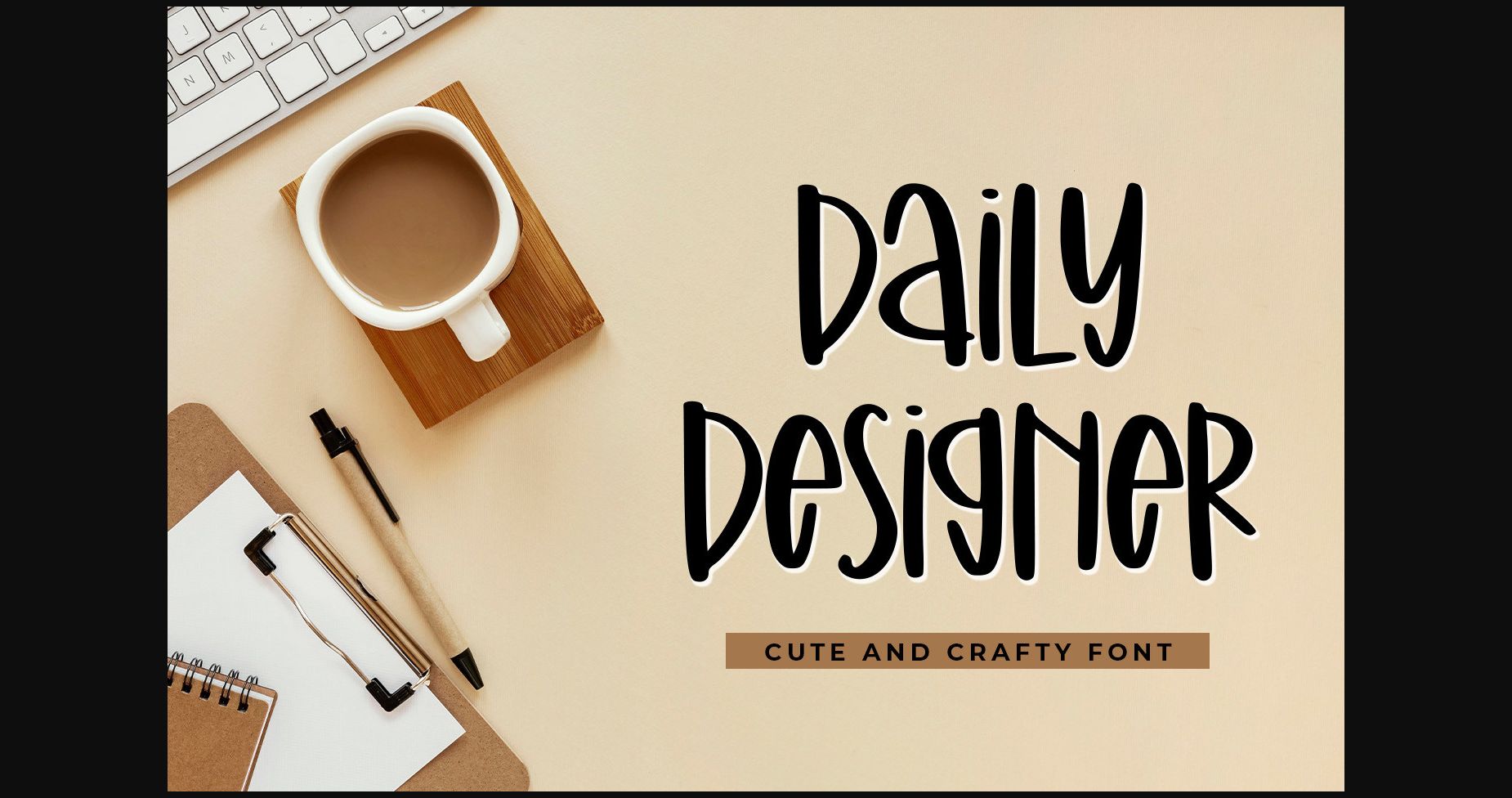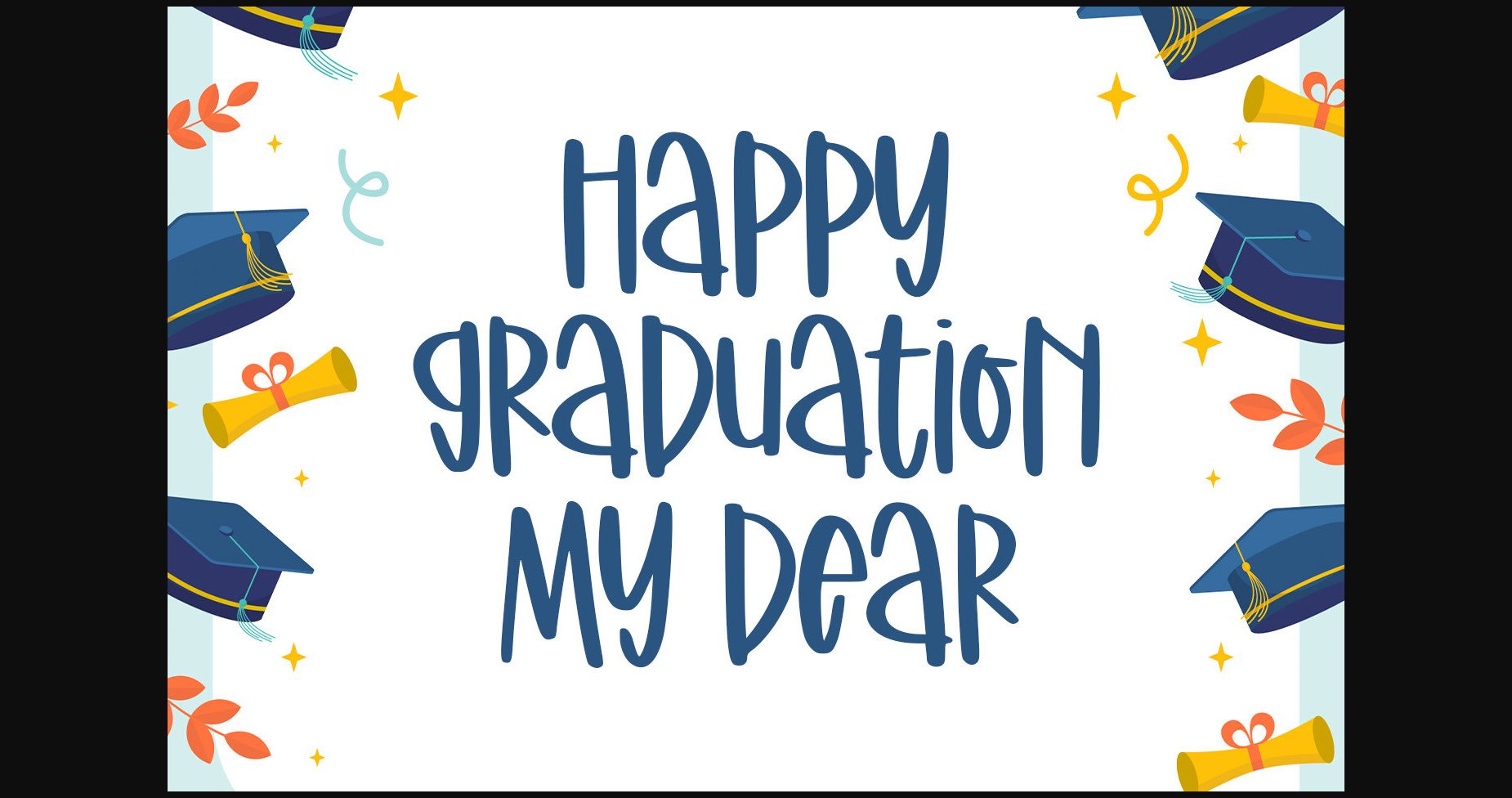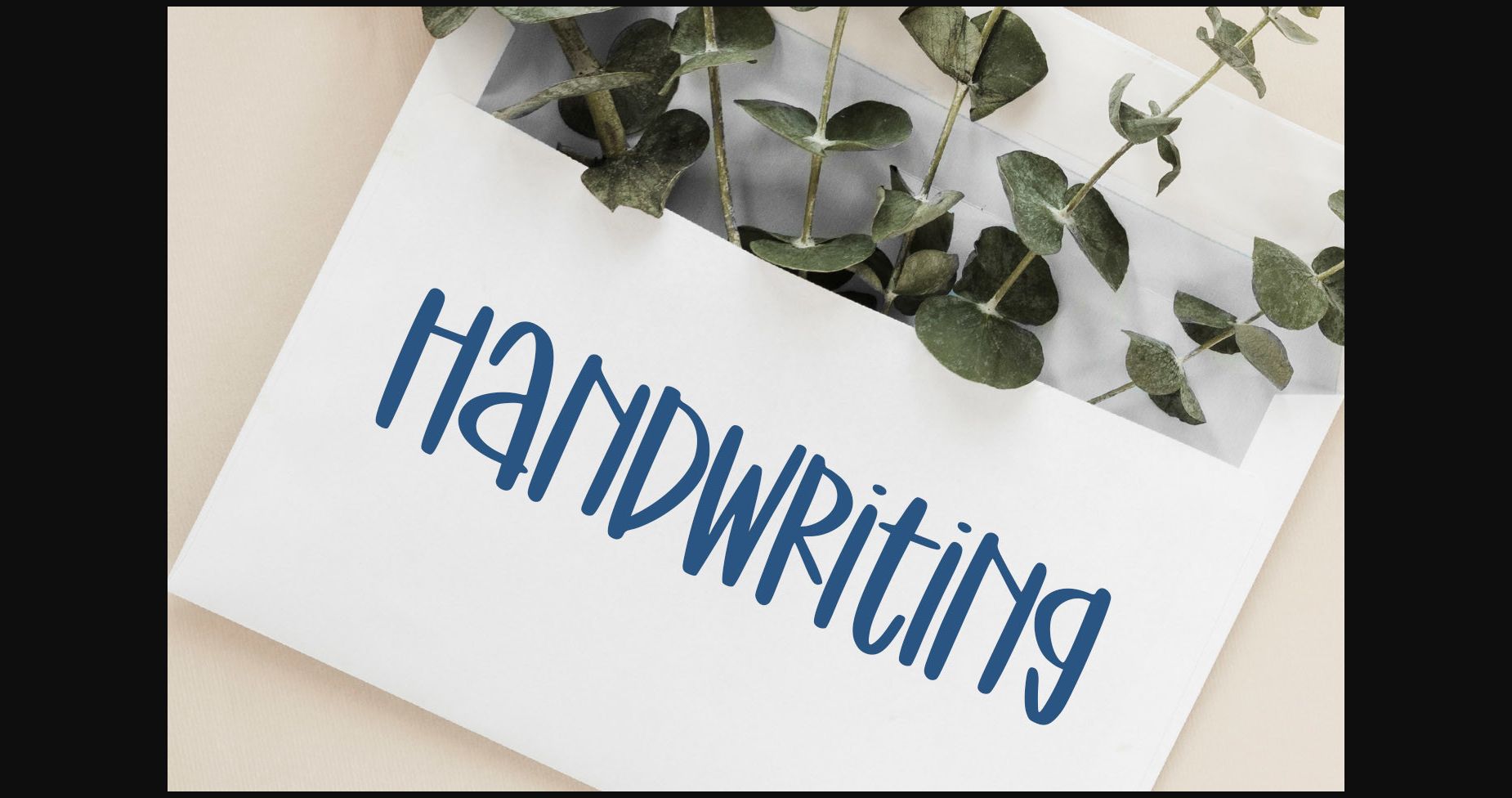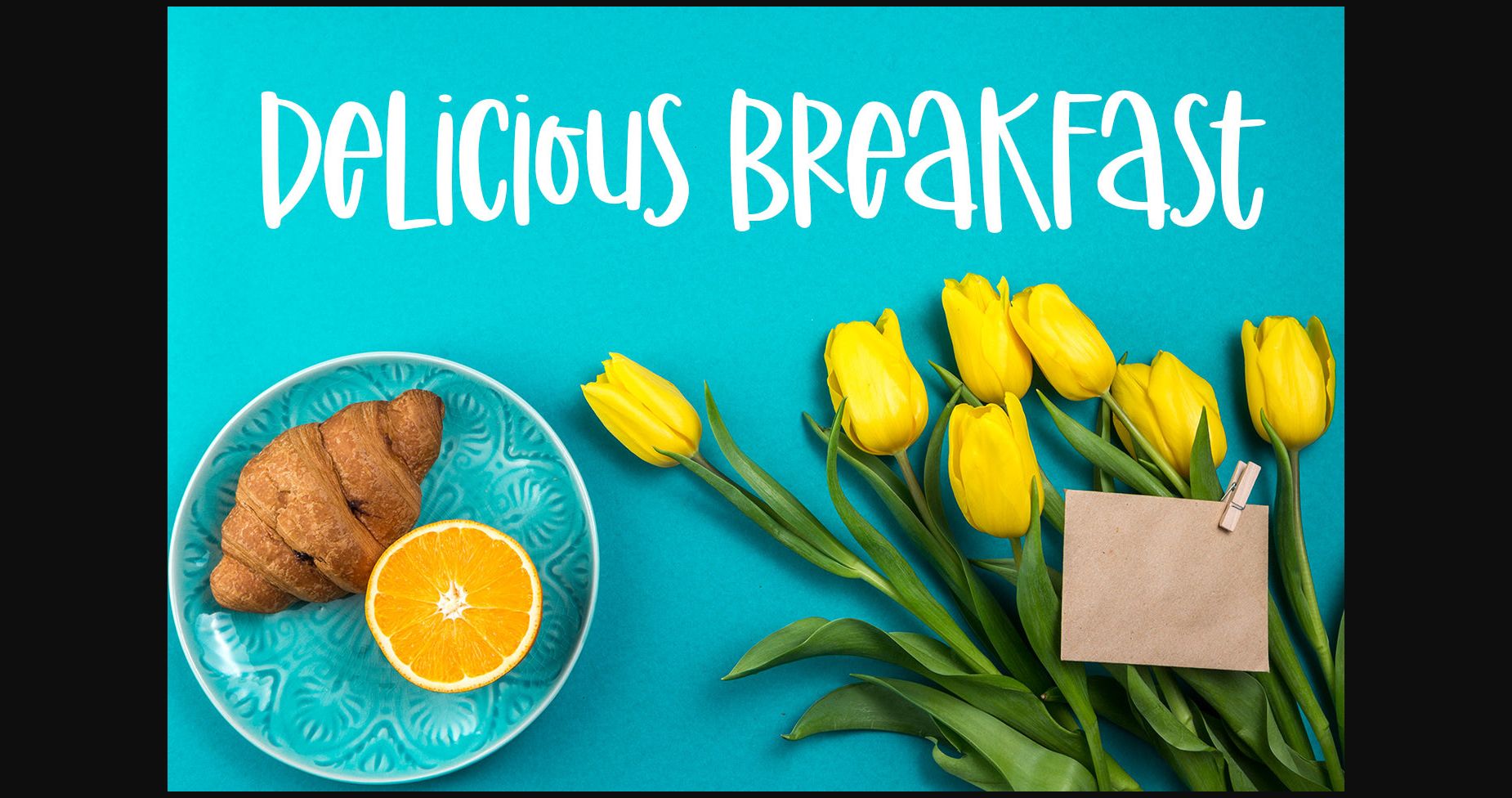
About Daily Designer Font
DAILY DESIGNER
– cute and crafty font-
DAILY DESIGNER is playful font.
It is great for branding, quotes, logos, t-shirt designs, tote bag designs, cards, banners, social media, and more.
– cute and crafty font-
DAILY DESIGNER is playful font.
It is great for branding, quotes, logos, t-shirt designs, tote bag designs, cards, banners, social media, and more.